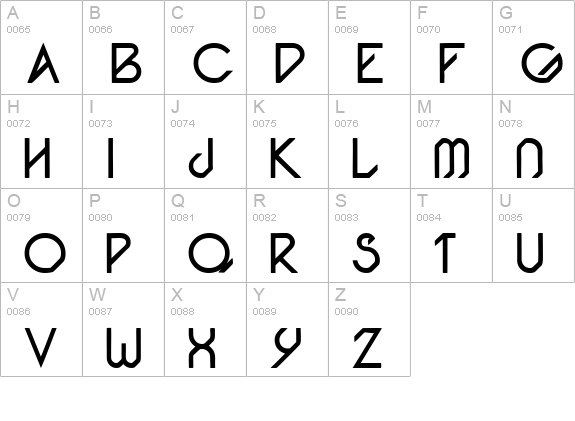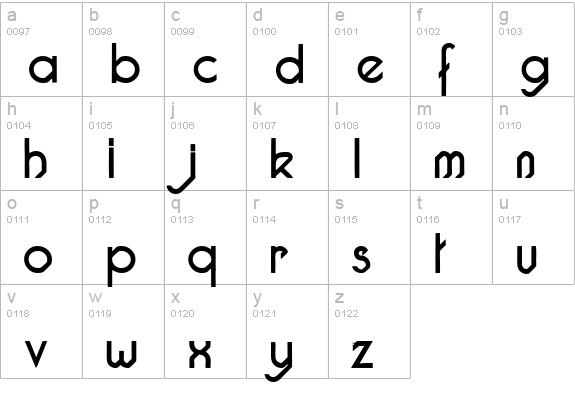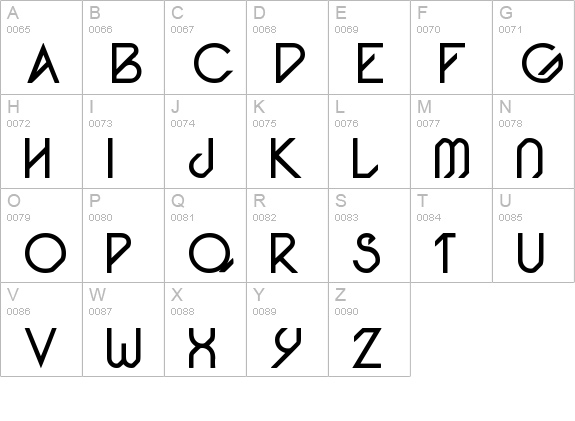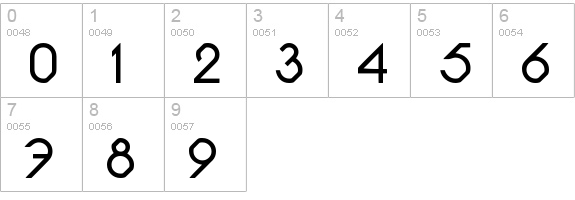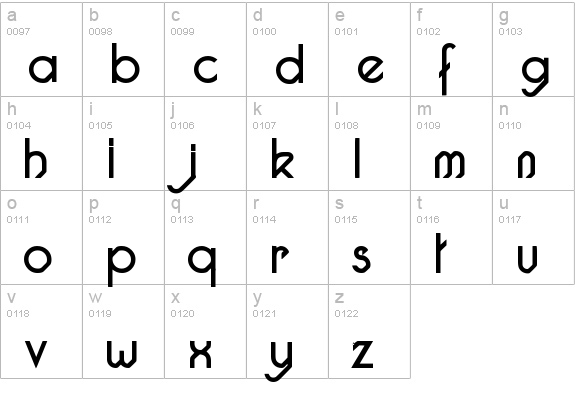
Pacotille regular is the standard, neutral variant in the Pacotille typeface family \xE2\x80\x94 well suited to general body text, paragraphs, and standard typographic work.
Pacotille regular font is a versatile and modern typeface that exudes elegance and sophistication. Its clean lines and smooth curves make it perfect for a wide range of design projects, from branding to editorial design. The font strikes a balance between classic and contemporary, making it a timeless choice for any creative endeavor. One of the best things about Pacotille regular font is that it is completely free to download at FontsMarket.com. This means that you can access this beautiful typeface without any cost, making it a valuable addition to your font library. Whether you are a seasoned designer looking for a fresh font or a newcomer exploring typography for the first time, Pacotille regular font is a fantastic choice that won't break the bank. With its sleek and professional appearance, Pacotille regular font is sure to elevate any project it's used in. Its versatility and readability make it suitable for a variety of applications, from web design to print materials. Download Pacotille regular font for free today and see how it can enhance your next design project!